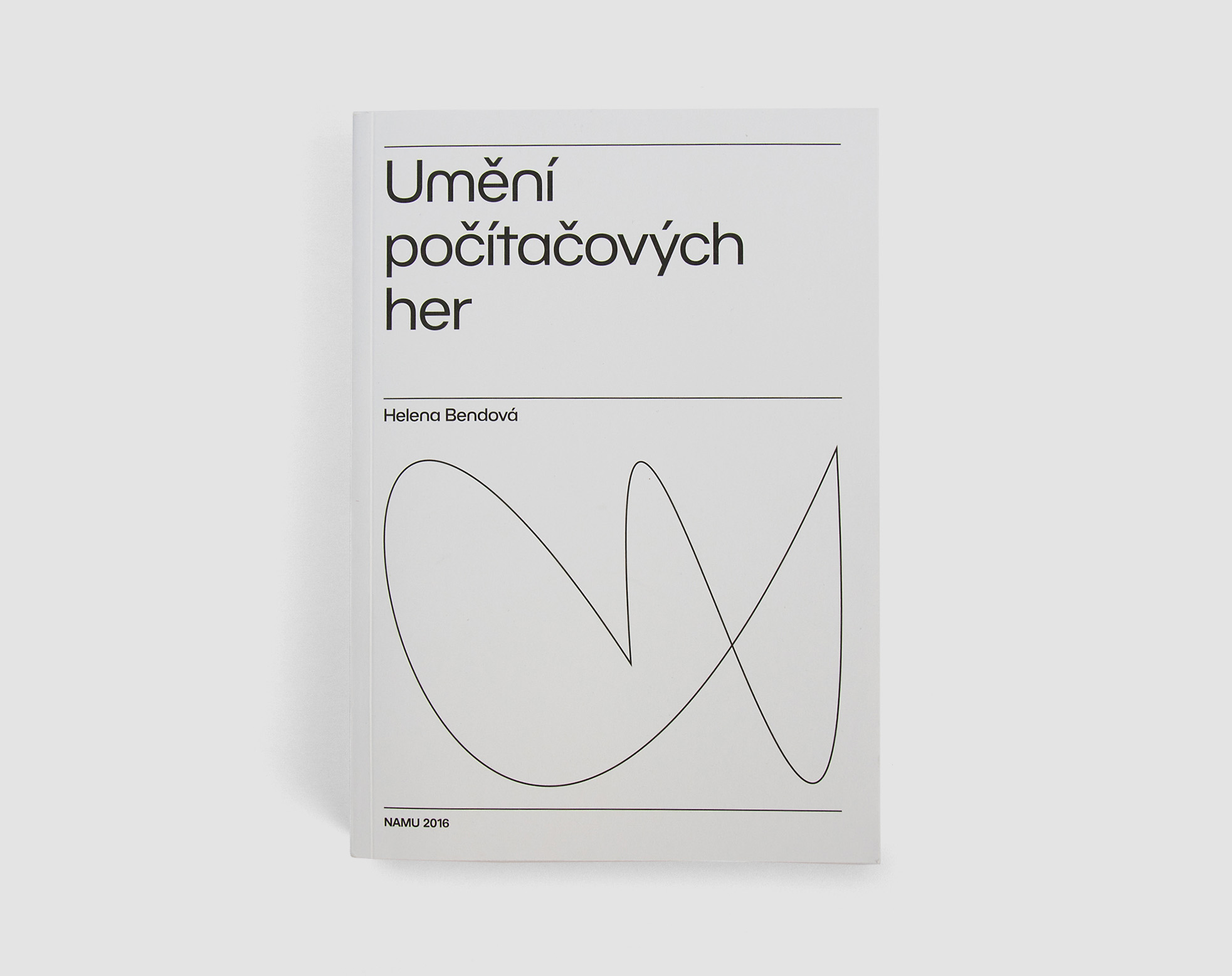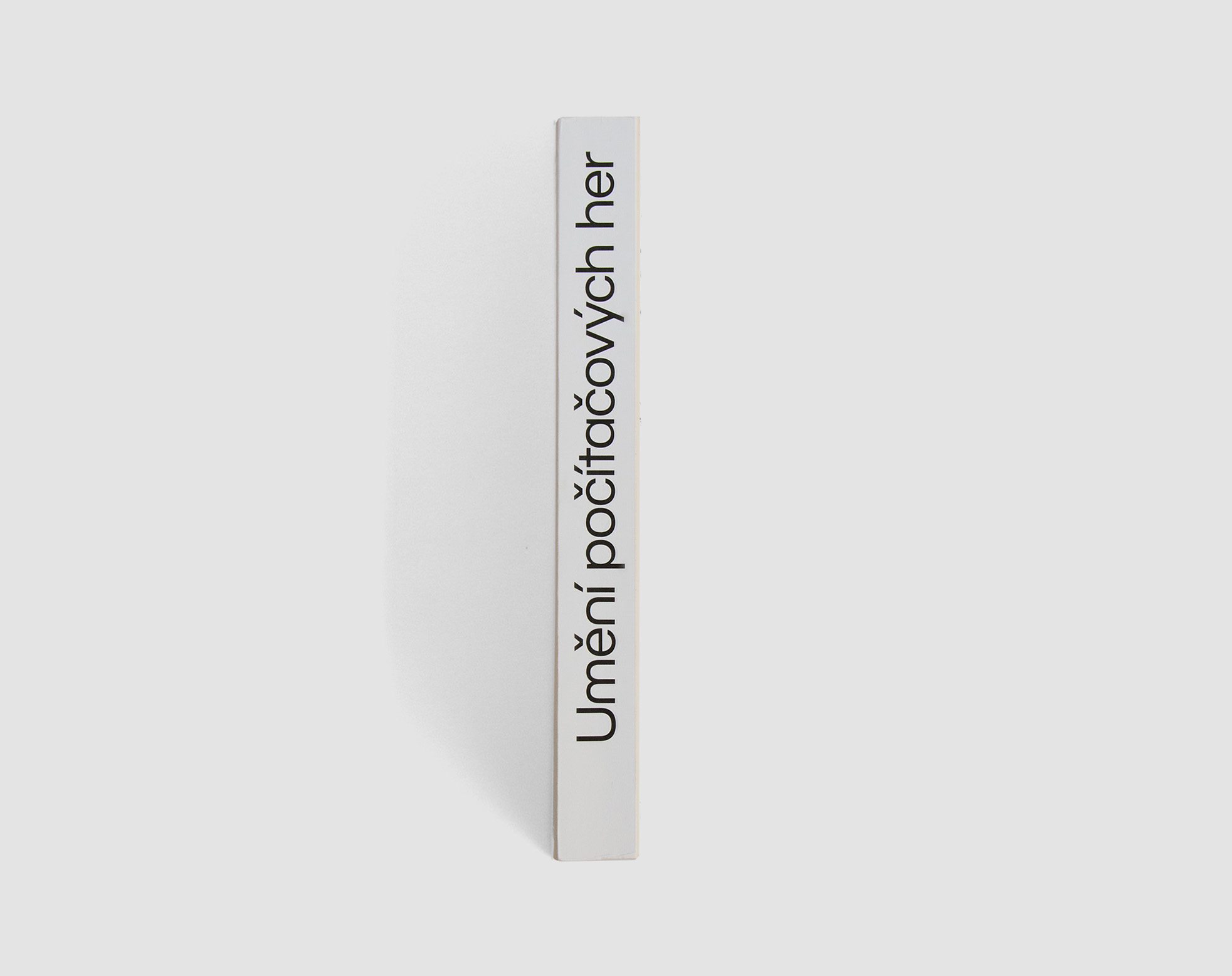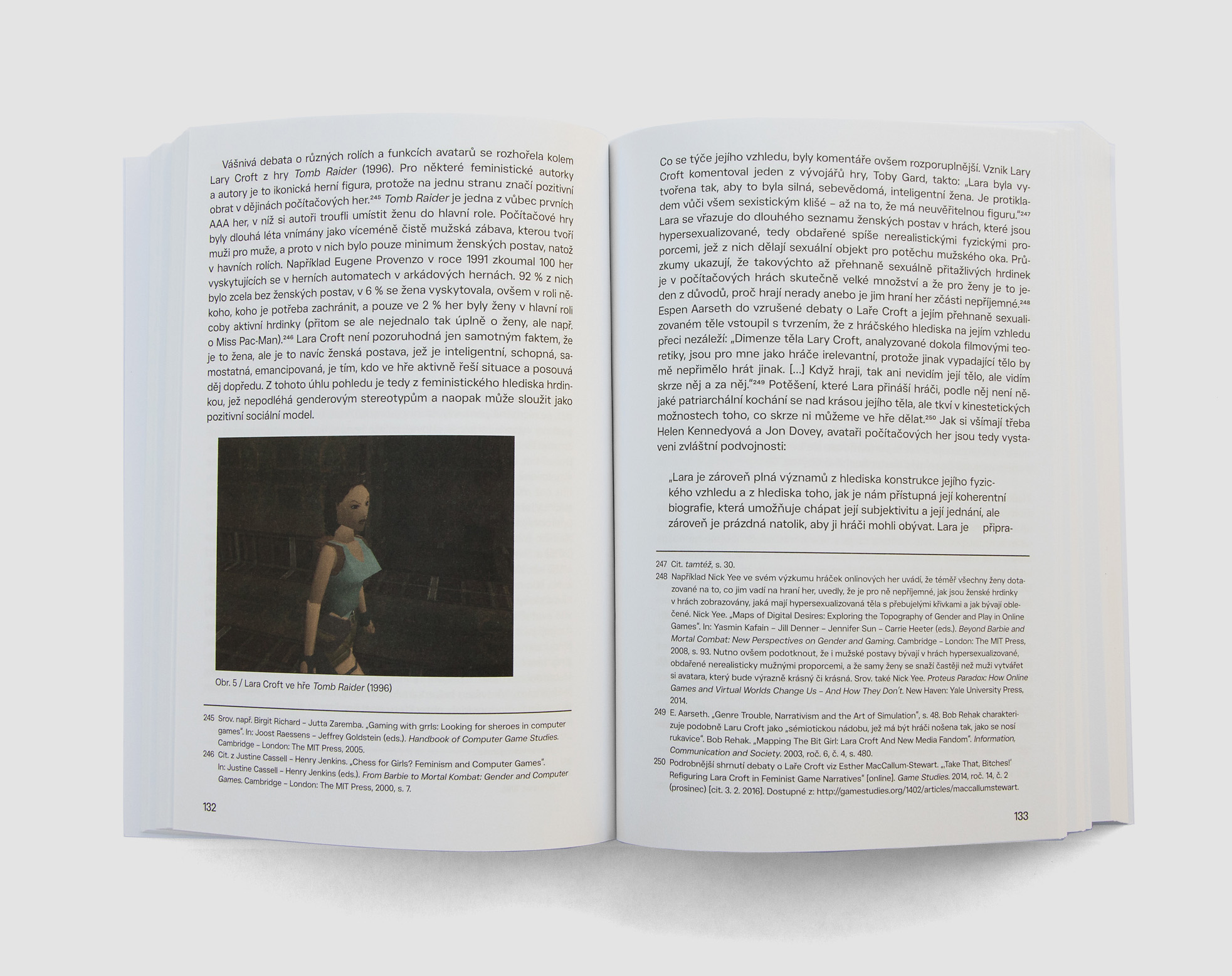
The Art of Computer Games
The book Art of Computer Games uses customised, slightly condensed version of BC Novatica. BC Brief is used for the cover as illustration.
Author Helena Bendová.
Published by NAMU (Akademie múzických umění v Praze), 2016.
Graphic design by Radek Sidun.